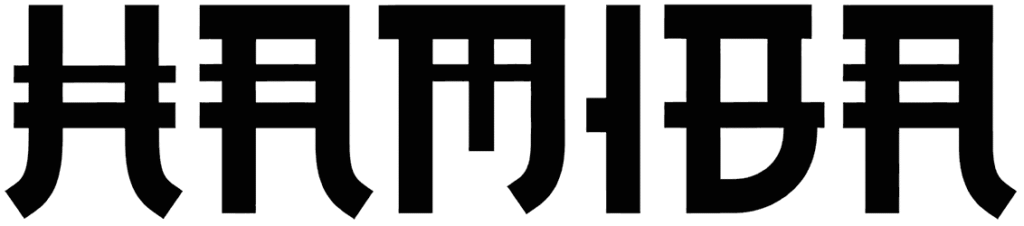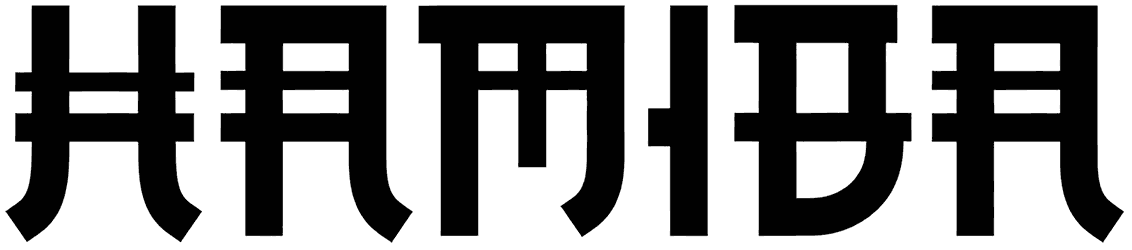
Hamiba Font
Run smoothly as a savior to pull your typography design out of the monotony and make it engaging to any eye. This Chinese font reaches with foreign look characters that can highlight any statement in your album covers, posters, movies, packaging, and so on.
As a Japanese font, Hamiba, despite lacking numbers with a classic spirit, would be long-lasting in any mind! Lead the eyes to your presentations and trump your opponents by pressing the download button directly!